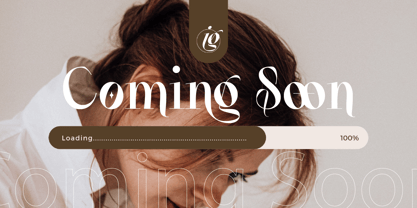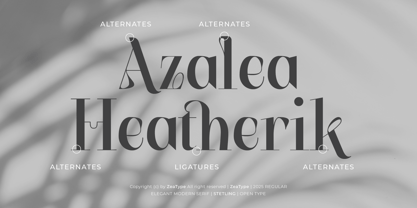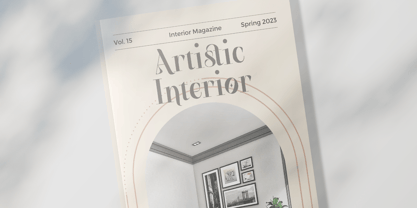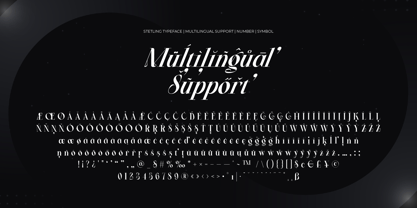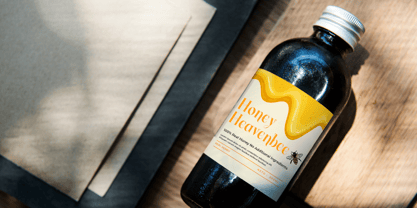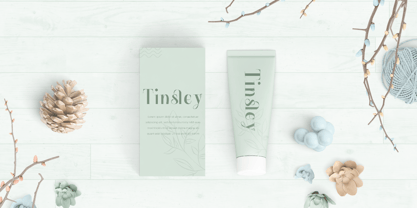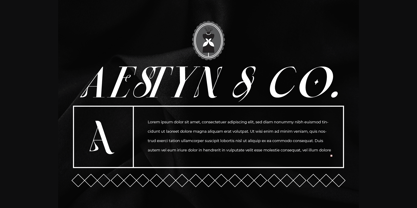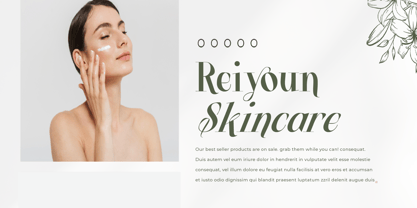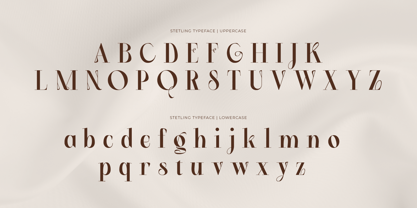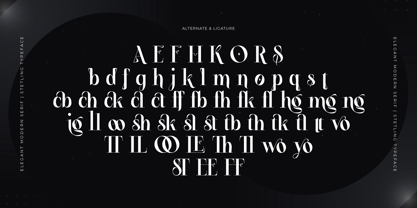
Stetling
by Zeatype
The Stetling Font Family was designed by Hany Fauzan and published by Zeatype. Stetling contains 2 styles and family package options. More about this family
Stetling – Elegant Serif Font by Zeatype
Introducing Stetling, a refined elegant serif designed to elevate your typography with a touch of timeless sophistication. Crafted by Zeatype, this font offers two stunning styles—Regular and Italic—providing versatility for both classic and modern designs. With graceful curves, sharp serifs, and exquisite details, Stetling is perfect for branding, editorials, invitations, and luxury packaging. Whether you're creating an upscale logo or an elegant magazine layout, Stetling ensures a polished and professional look. Elevate your design aesthetic with the timeless charm of Stetling.
Designers: Hany Fauzan
Foundry: Zeatype